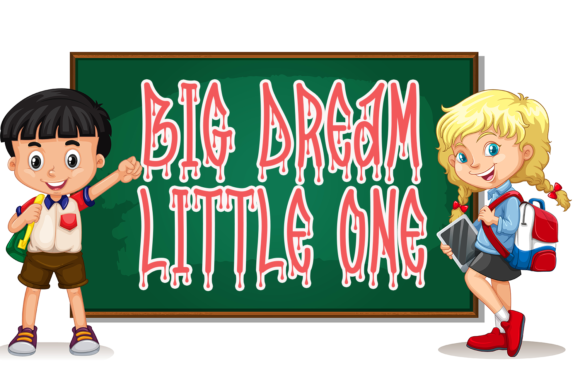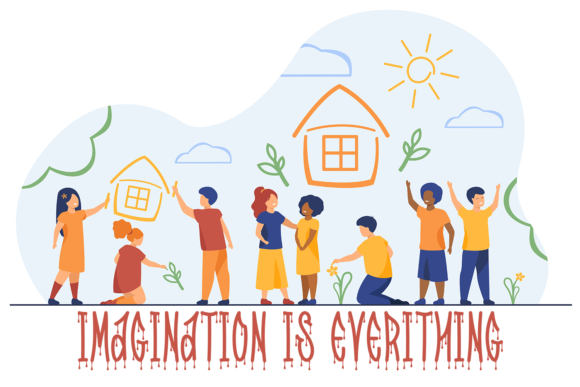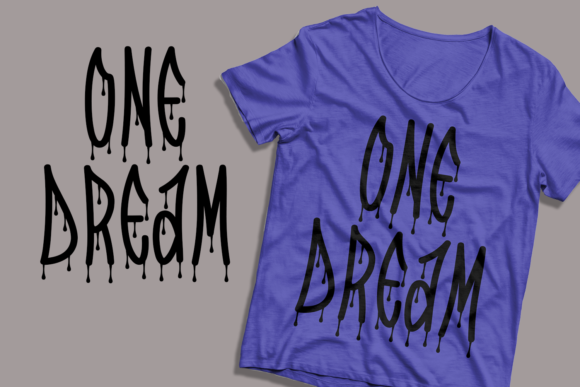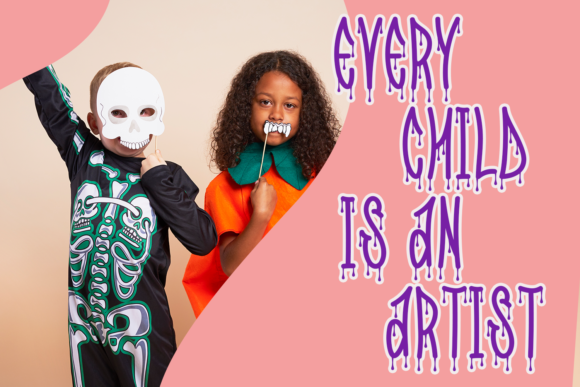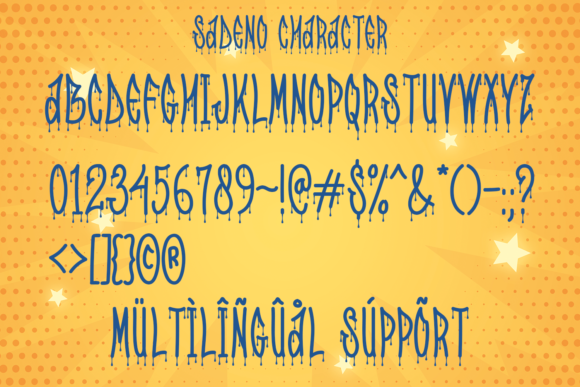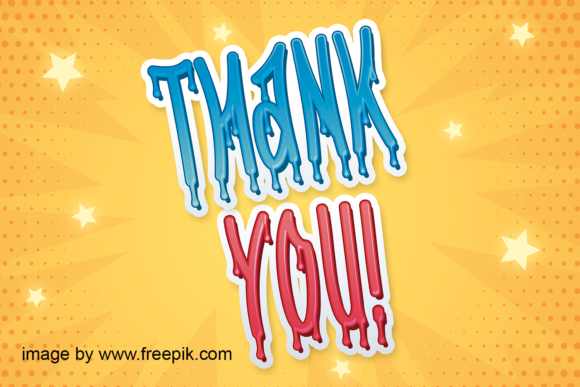
Introduction to Sadeno Font
As designers, we’ve all been there – staring at a blank canvas, desperate for the perfect font to bring our creative project to life. It’s the moment when the entire design starts to take shape, and the right font can make all the difference. For me, that moment happened when I stumbled upon the quirky and eerie Sadeno Font.
With its unique, gothic-inspired design, the Sadeno Font is the perfect addition to any Halloween party invitation, creepy gathering, or design that requires a gloomy yet fun touch. Its high-quality design and transparent background make it a valuable resource for designers looking to add a touch of sophistication to their creative projects.
Key Features of Sadeno Font
- Transparent background for seamless integration with any design
- Supports multiple languages and characters, making it a versatile design resource
- Unique, modern design aesthetic that sets it apart from other fonts
- Perfect for use in digital and print projects, from logos and branding to signage and packaging
Honest Review: Sadeno Font
I recently had the chance to work with the Sadeno Font, and I’m excited to share my honest thoughts with you. As a designer, I’m always on the lookout for high-quality design resources to elevate my creative projects.
One of the things that works well with the Sadeno Font is its versatility. The font comes in a range of weights and styles, making it perfect for everything from headings to body text. I particularly liked the fact that it has a transparent background, which made it easy to combine with other design elements.
Here are some of the key features that I loved about the Sadeno Font:
- Range of weights and styles to suit different design needs
While the Sadeno Font is a great addition to any designer’s toolkit, there are a few limitations to be aware of:
- May not be as customizable as some other fonts
- Some users may find the font too ornate or busy
Overall, I was impressed with the Sadeno Font and would definitely recommend it to fellow designers. Its high-quality design and versatility make it an excellent design resource for creative projects, and the free download is a bonus.
Common Use Cases for Sadeno Font
Sadeno Font is perfect for creating custom logos, graphics, and typography for various design projects. Its high-quality design and transparent background make it ideal for use in branding, marketing materials, and other creative projects.